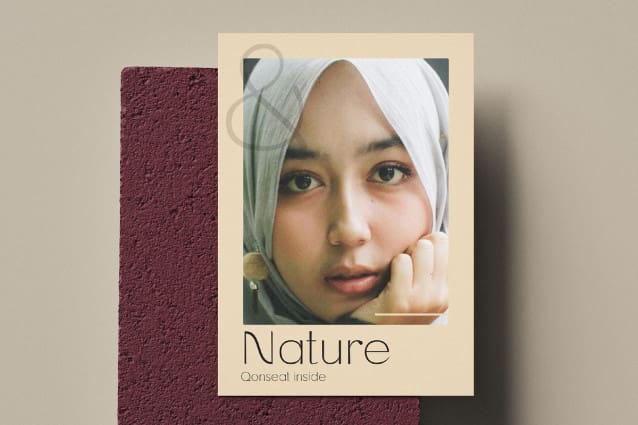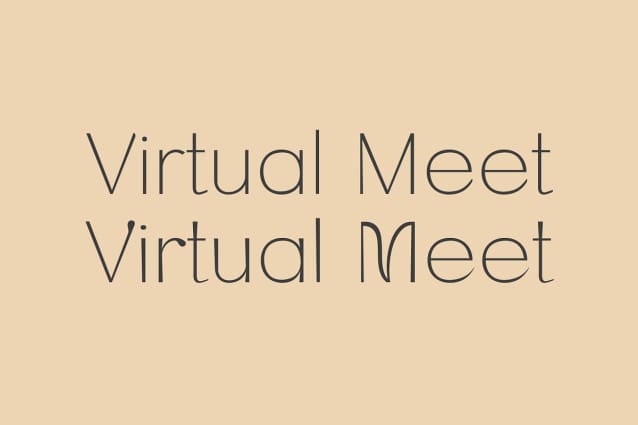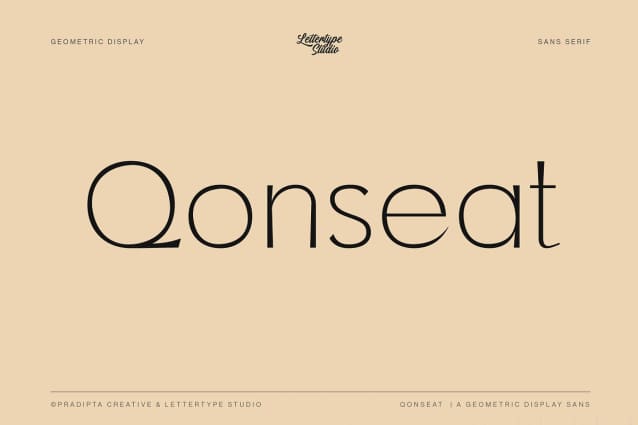
Qonseat Font
Qonseat Font is a Geometric Display Sans Serif with a ton of customization for your unique and standout designs.
Qonseat Font has over 57+ alternate glyphs for endless customization and creativity to control your projects.
This font is perfect for photography, watermarks, social media posts, advertisements, logos and branding, invitations, product designs, labels, stationery, wedding designs, product packaging, subheaders or headers, special events, or anything else.